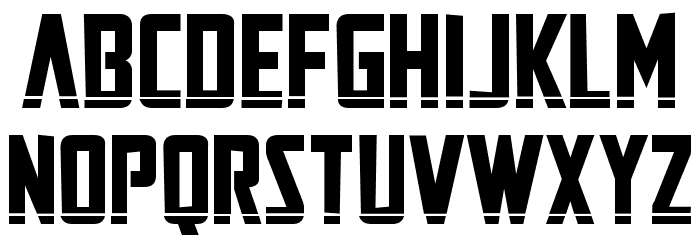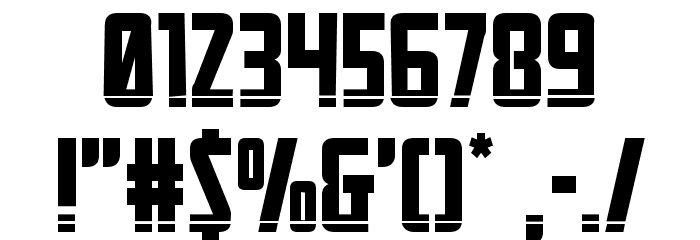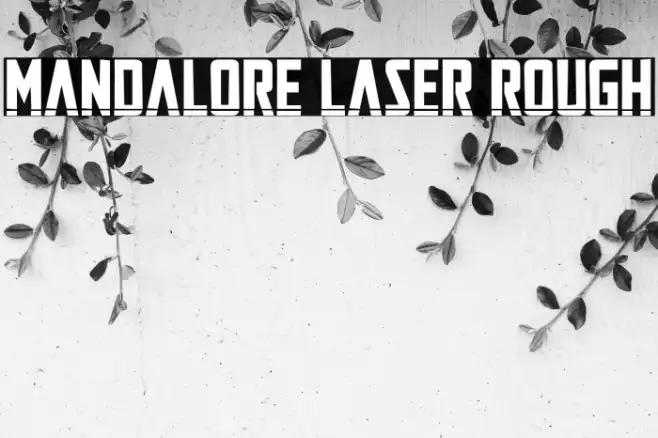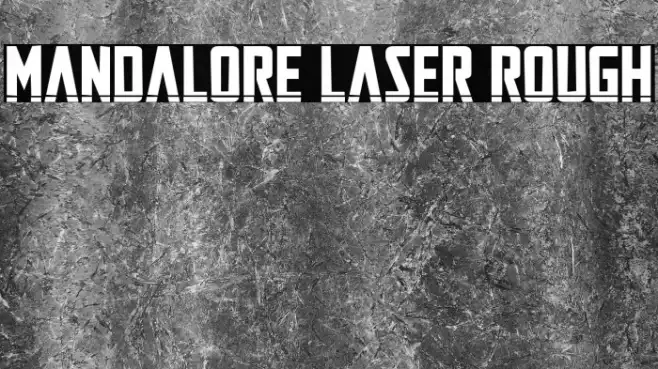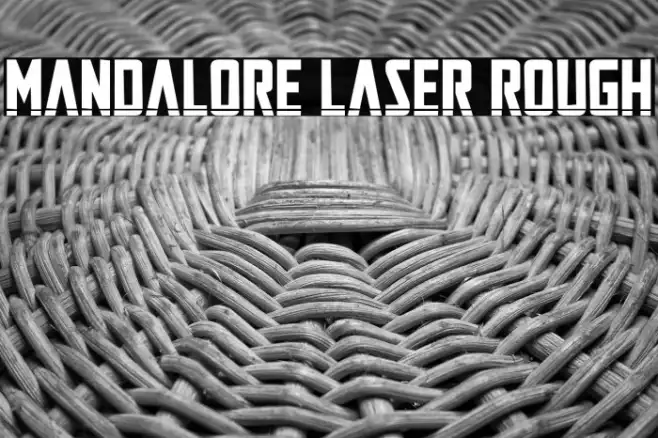
Mandalore Laser Rough Font
This font features a bold and futuristic design with sharp, angular edges and a distinct geometric style. The characters are blocky and robust, with a unique cut-out effect that adds a sense of depth and dimension. The uppercase letters are particularly striking, with a strong presence that commands attention. The numbers and special characters maintain this bold aesthetic, ensuring consistency across all elements. The font's style is reminiscent of sci-fi and tech themes, making it ideal for projects that require a modern and edgy look.
A bold, futuristic font with sharp, angular edges and a geometric style.
- Proposed Projects: Ideal for sci-fi themed posters, video game titles, tech branding, and futuristic designs.
- Overall Style: Futuristic